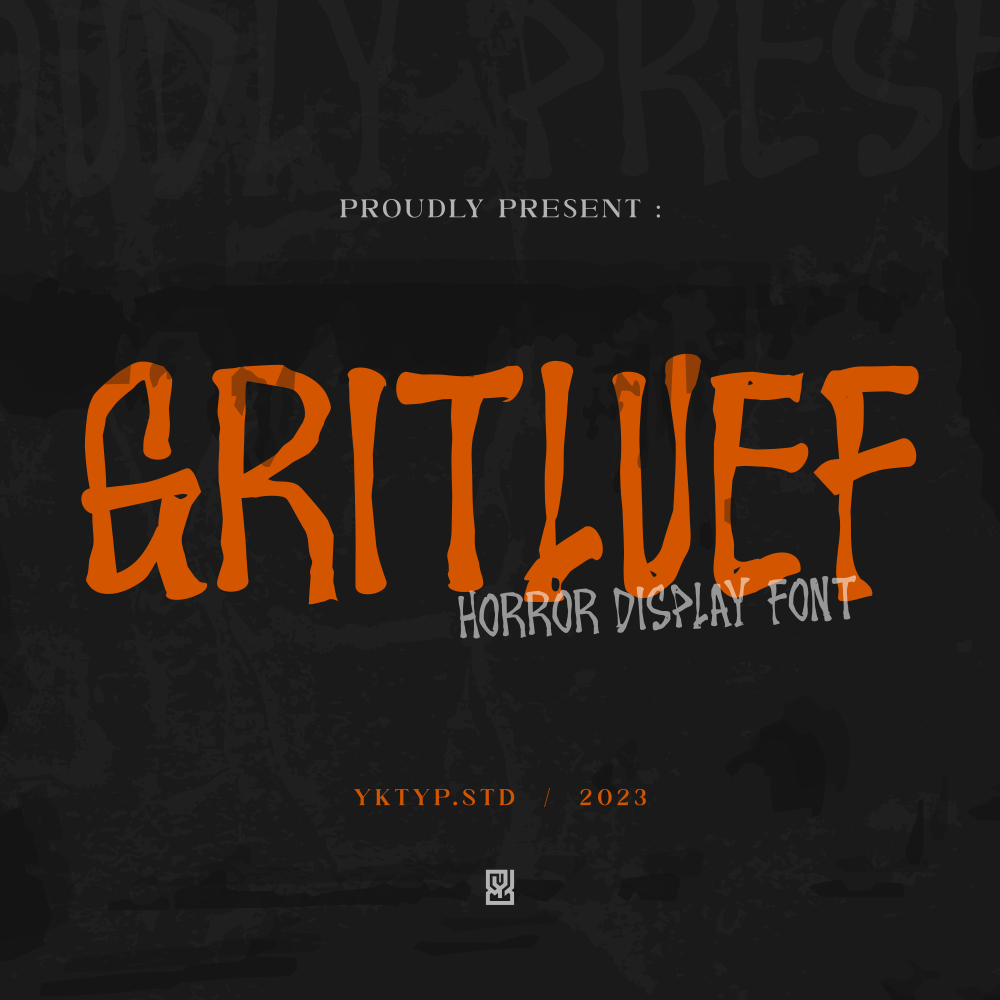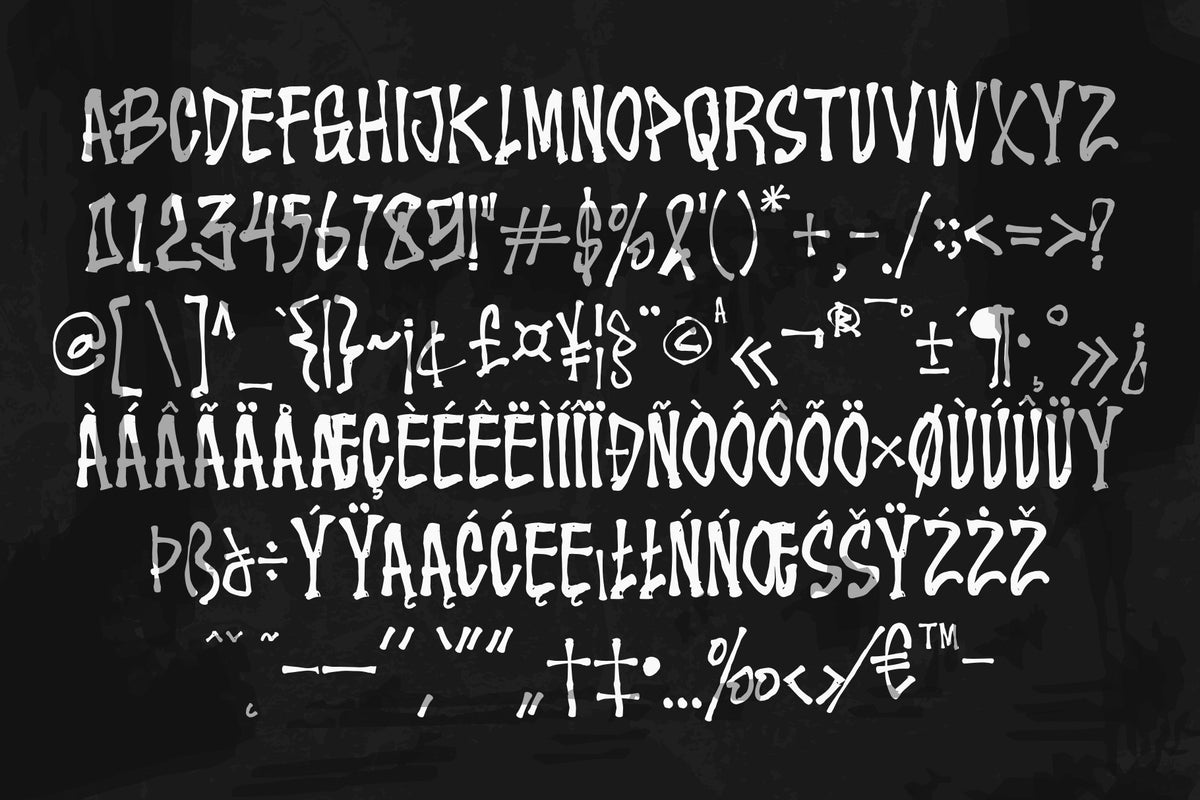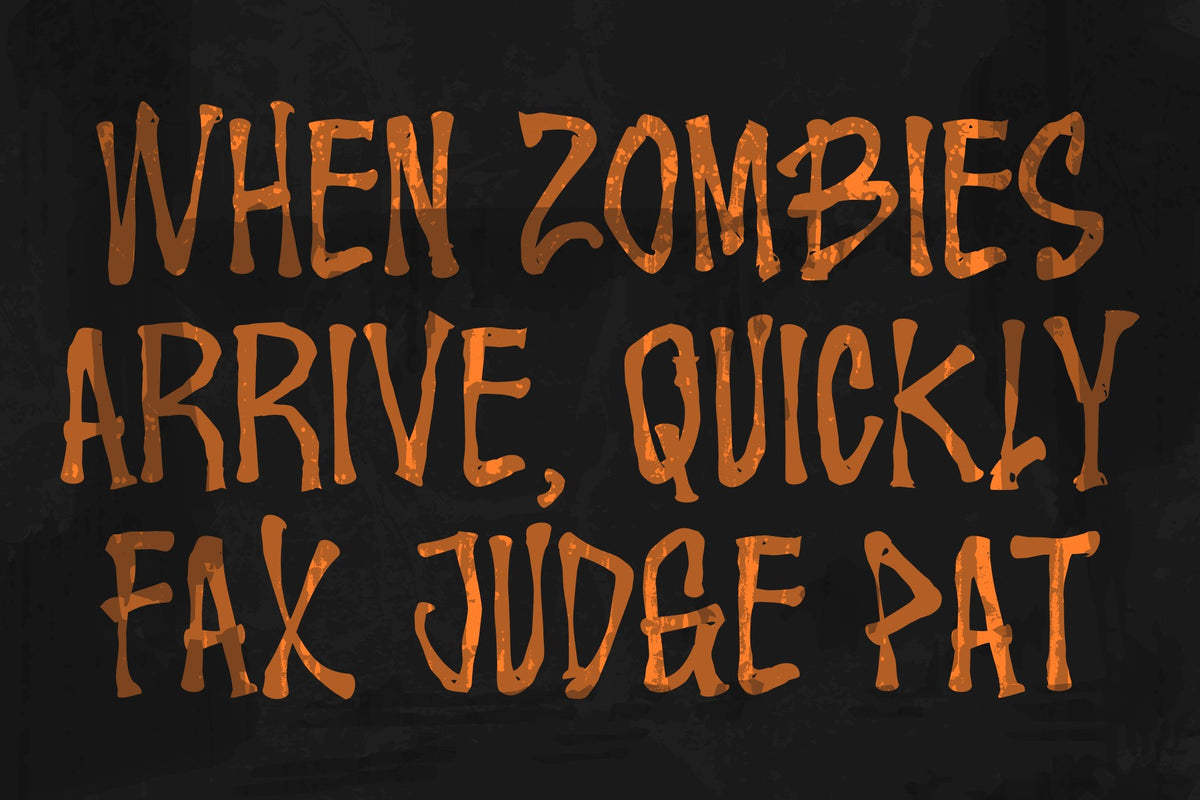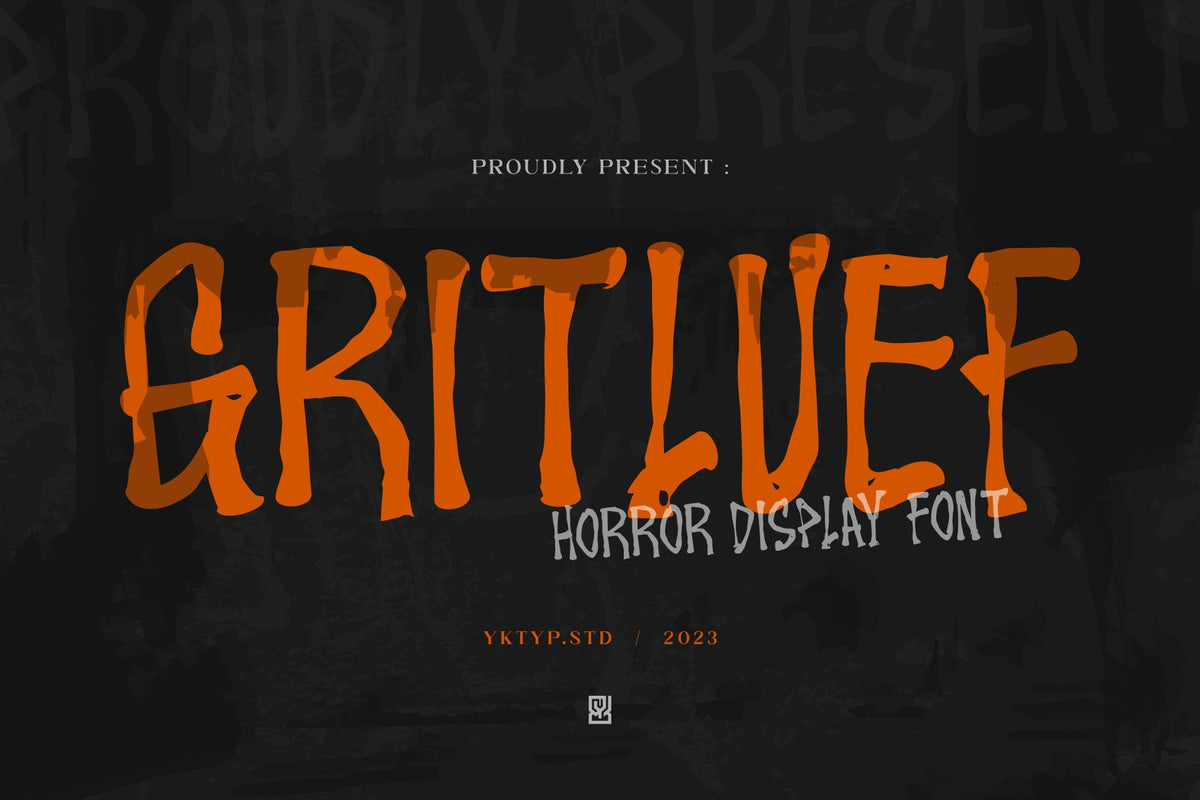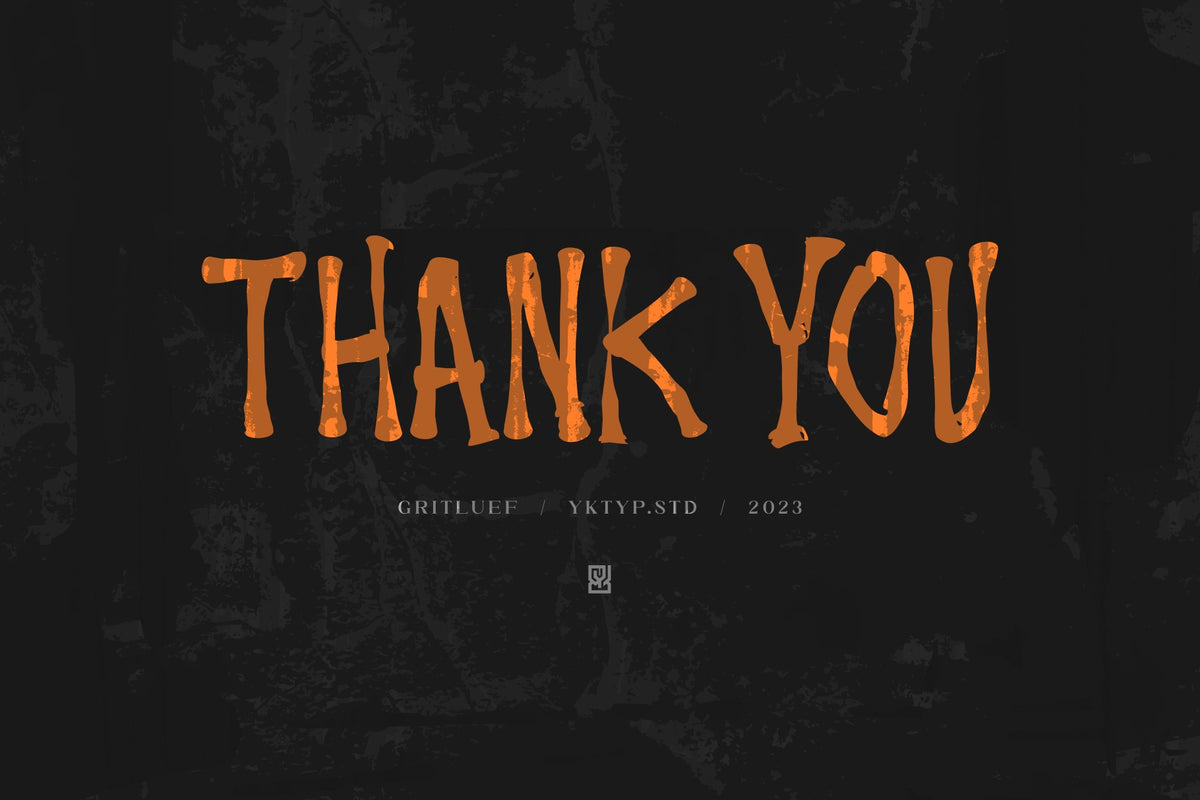
Gritluef - Horror Display Font
Unleash pure terror on your designs with Gritluef — the spine-chilling horror display font built for fright.
Proudly presenting Gritluef, the perfect typeface for designers who want to add an extra dose of dread to their spooky projects. Whether you're crafting haunted posters, Halloween invitations, or creepy event materials, this font delivers instant impact.
All caps characters (A–Z)
Numbers & punctuation
Gritluef is a horror display font featuring all-caps characters (A–Z), numbers, and punctuation. It is provided in OpenType (.otf) and TrueType (.ttf) formats.